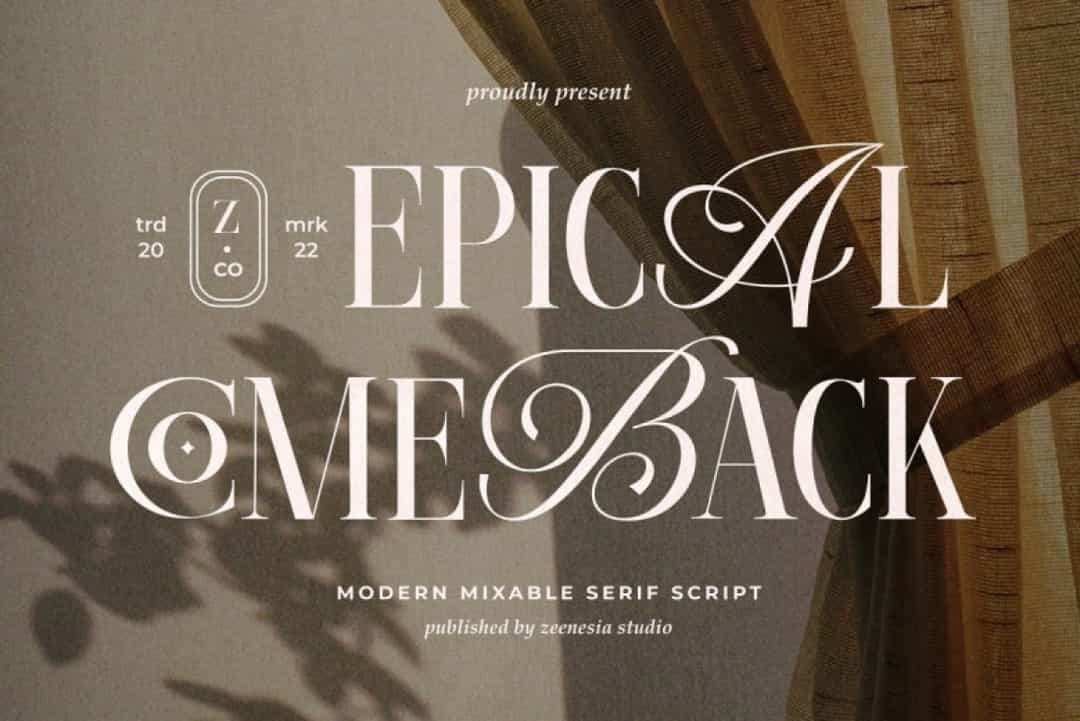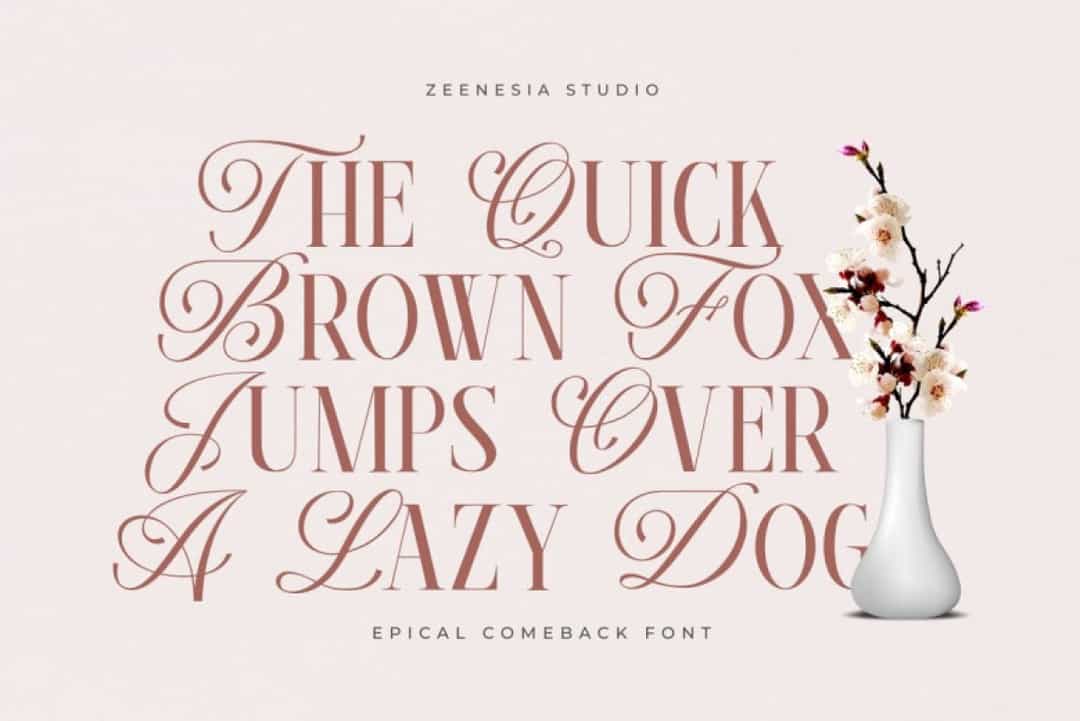
Epical Comeback is an ultra-modern display font featuring both serifs and script styles, providing it with both classic and modern appeal. Perfect if you want to bring excitement into your work!